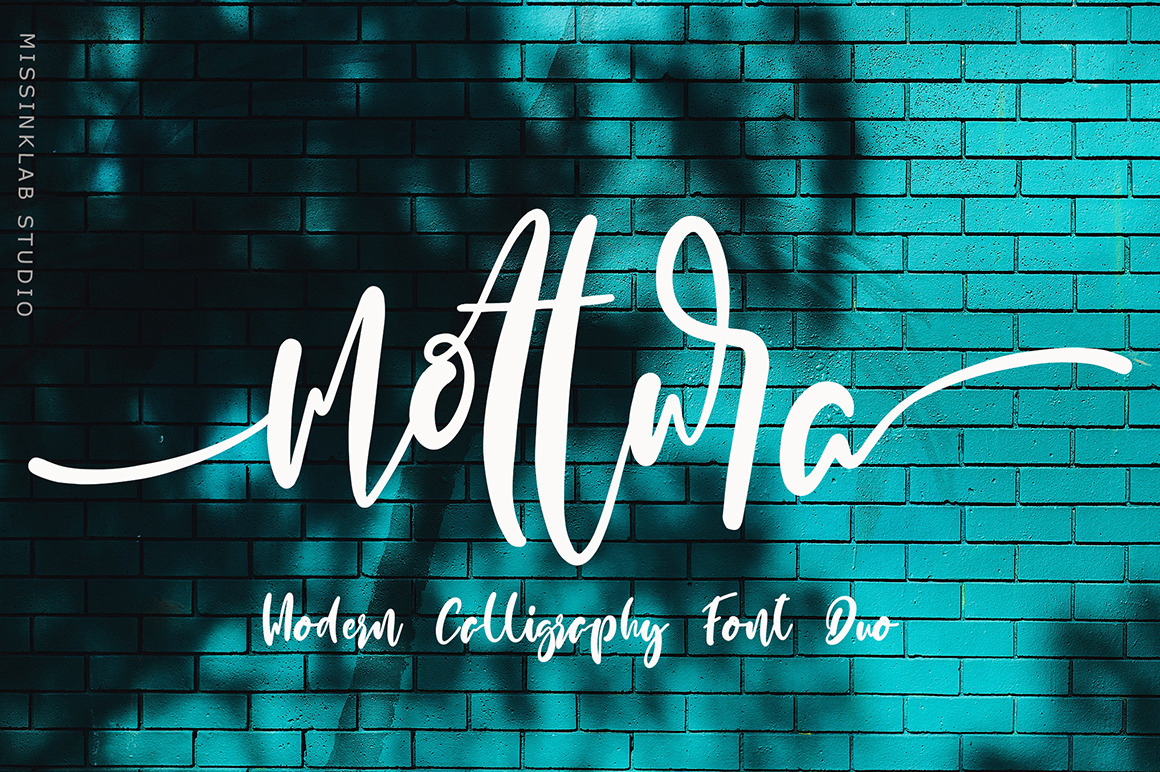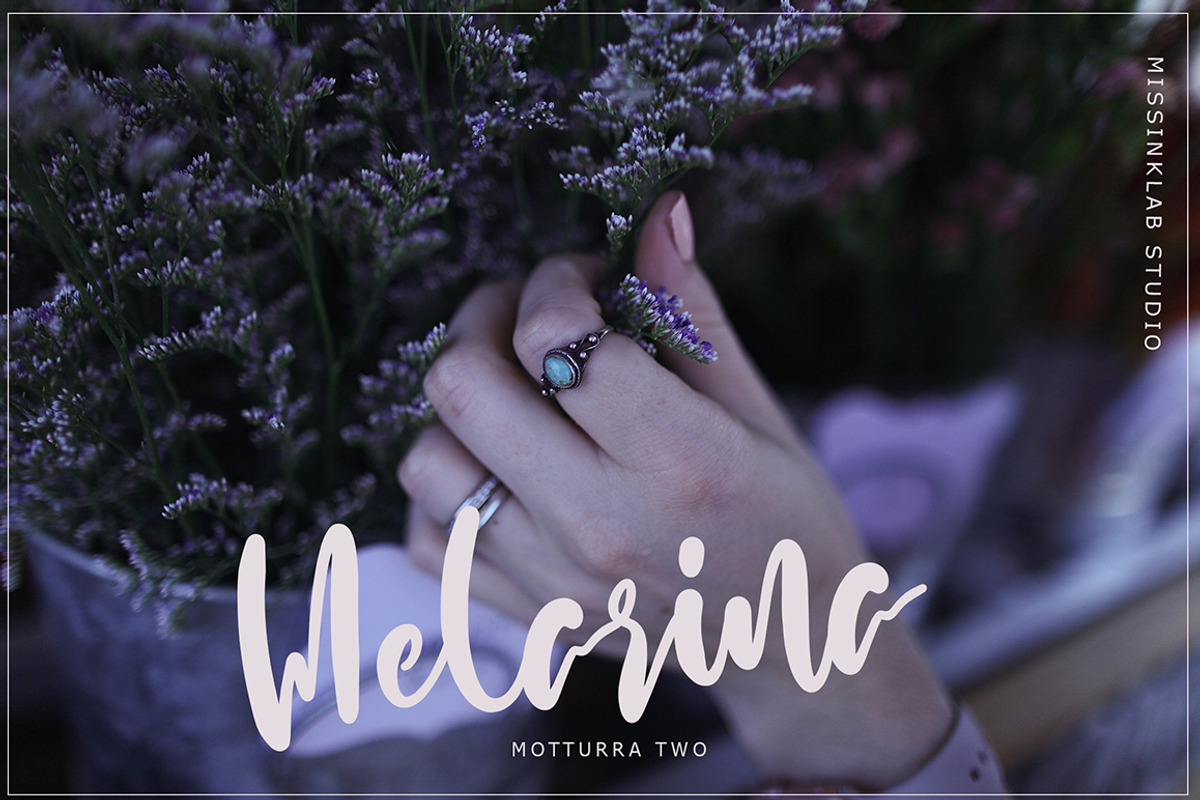
Mottura modern script font with modern style, this font will perfect for many different project ex: quotes, logo, blog header, poster, banding, fashion, apparel, letter, invitation, stationery, etc...